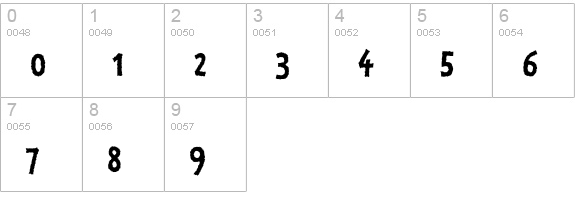
Kosmik-BoldTwo Font Details
Kosmik-BoldTwo is a bold and impactful font that commands attention with its strong, modern aesthetic. Its sharp lines and sleek curves make it perfect for creating eye-catching headlines, titles, and branding materials. This versatile typeface exudes confidence and sophistication, making it ideal for a wide range of design projects. The best part? Kosmik-BoldTwo is available for free download at FontsMarket.com. This means you can easily access this striking font and incorporate it into your designs without any cost. Whether you're working on a poster, logo, website, or any other creative project, Kosmik-BoldTwo is sure to make a bold statement and leave a lasting impression. Download this font today and take your design to the next level!